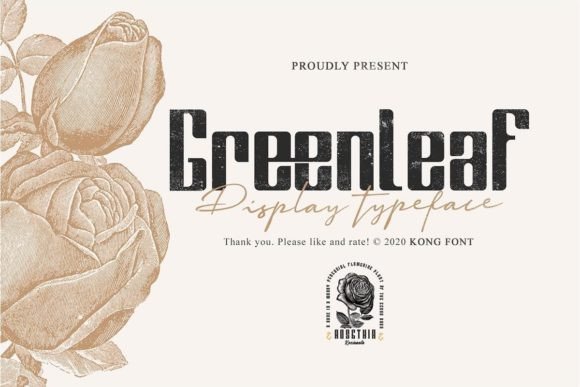
Unleash the Power of Expression with Greenleaf: The Ultimate Modern Logo Font
Embark on a creative journey with Greenleaf, the modern and unique display font that captivates the essence of artistic expression. Designed with a keen eye for detail, Greenleaf is meticulously crafted to add a touch of elegance and sophistication to your designs. Whether you're a seasoned crafter, a passionate designer, or simply seeking a font that elevates your creative projects, Greenleaf is the perfect choice.
As a member of the esteemed display font family, Greenleaf shines as a beacon of creativity. Its distinct and eye-catching letters command attention, making it the perfect font for creating striking logos, captivating posters, mesmerizing social media graphics, and any other project that demands a bold and memorable presence.
With its unusual yet captivating appearance, Greenleaf has the remarkable ability to transform ordinary designs into extraordinary works of art. Its unconventional letterforms add a touch of whimsy and intrigue, making it the perfect choice for projects that demand a creative edge.
At the helm of Greenleaf's creation is the renowned Kong Font Studio, a collective of talented font designers dedicated to pushing the boundaries of creativity. Their passion for excellence shines through in every curve and stroke of Greenleaf, ensuring that it meets the highest standards of quality and artistry.